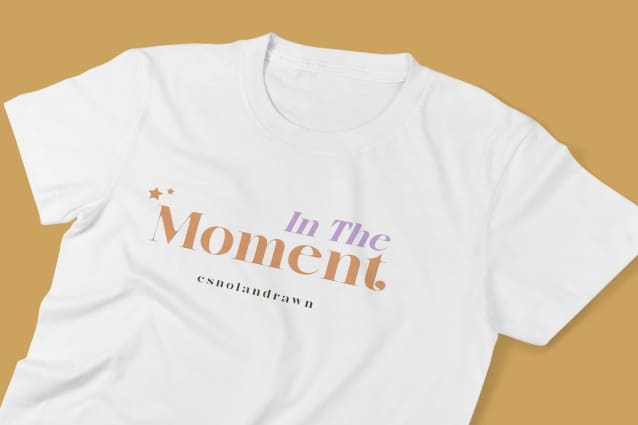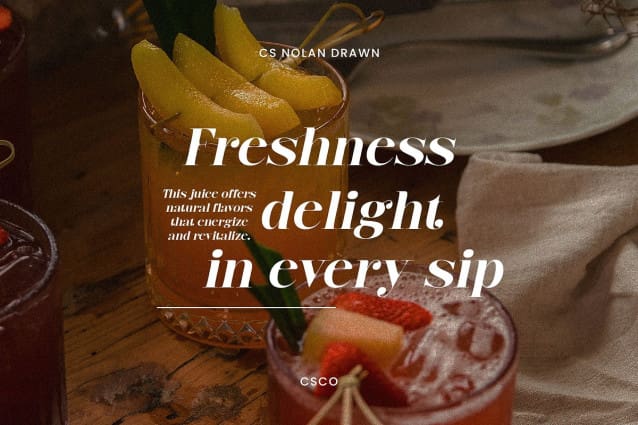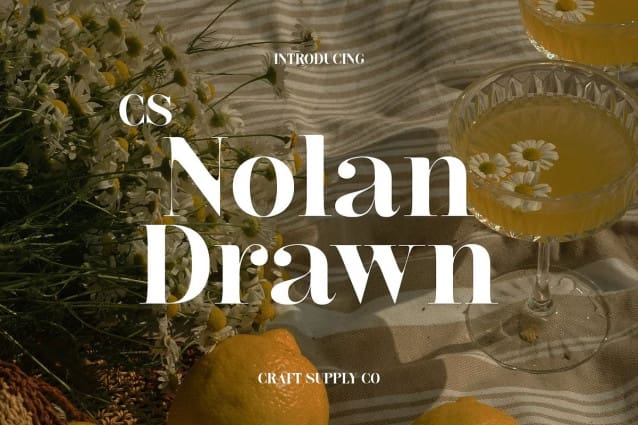
CS Nolan Drawn Font
CS Nolan Drawn Font is a modern serif font that elegantly blends classic design elements with a unique artistic flair. The font’s formal and proportional letterforms evoke a sense of sophistication and timeless elegance, offering a clean, structured look that reflects the best of traditional typography. Its modern serif style ensures a professional yet refined appearance, perfect for high-end design projects.
An Artistic Drawn Effect for Personal Character What sets this font apart is its distinctive drawn effect, which gives the font an organic, hand-crafted quality. The clean lines of the font are enhanced by subtle imperfections, adding texture and depth to each character. This hand-drawn look introduces a more personal, creative touch, transforming the typeface from traditional to something truly unique and expressive.
Elegant, Refined, and Timeless The combination of modern serifs and the drawn effect results in a font that feels both classic and fresh. Its elegant, proportional design delivers a refined and timeless impression, while the organic texture adds a level of character and uniqueness that distinguishes it from more conventional serif fonts. This balance of tradition and artistic flair makes this drawn font ideal for a wide range of sophisticated applications.